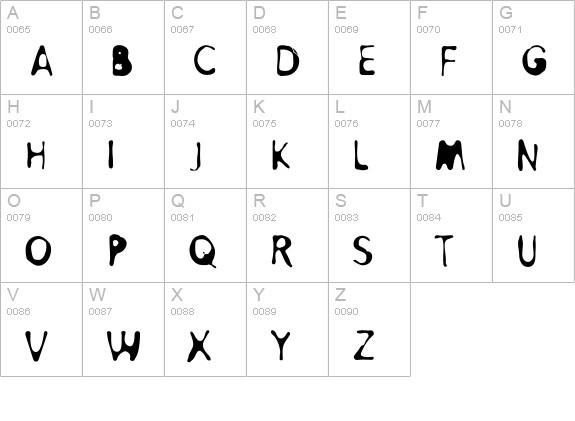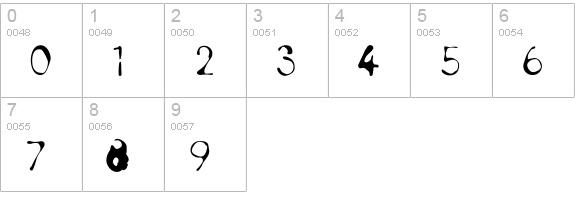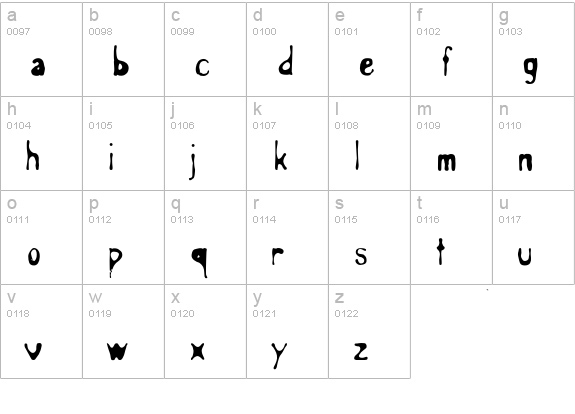
TetsuoOrganic Font Details
TetsuoOrganic font is a stunning and mesmerizing typeface that is sure to captivate and inspire. Its unique and organic design elements make it perfect for creating eye-catching and engaging designs. With its flowing curves and intricate details, TetsuoOrganic font adds a touch of elegance and sophistication to any project. This font is truly a work of art, with each letter carefully crafted to bring beauty and harmony to your designs. Its versatility allows it to be used in a wide range of applications, from logos and branding to posters and invitations. TetsuoOrganic font is designed to make a statement and leave a lasting impression. One of the best parts about TetsuoOrganic font is that it is free to download at FontsMarket.com. This means that you can easily access and use this amazing font without any limitations. Whether you are a professional designer or a hobbyist, TetsuoOrganic font offers you the opportunity to unleash your creativity and bring your vision to life. With its wide range of characters and glyphs, TetsuoOrganic font allows you to customize and personalize your designs with ease. The seamless integration of its letters ensures a smooth and harmonious flow, creating a visually pleasing aesthetic that is sure to capture attention. So go ahead and download TetsuoOrganic font today from FontsMarket.com and experience the freedom of creative expression. Let this captivating font be your ally in creating stunning designs that stand out from the crowd. Whether you're working on a personal project or a professional endeavor, TetsuoOrganic font will elevate your designs to new heights. Embrace the freedom and unleash your imagination with TetsuoOrganic font.